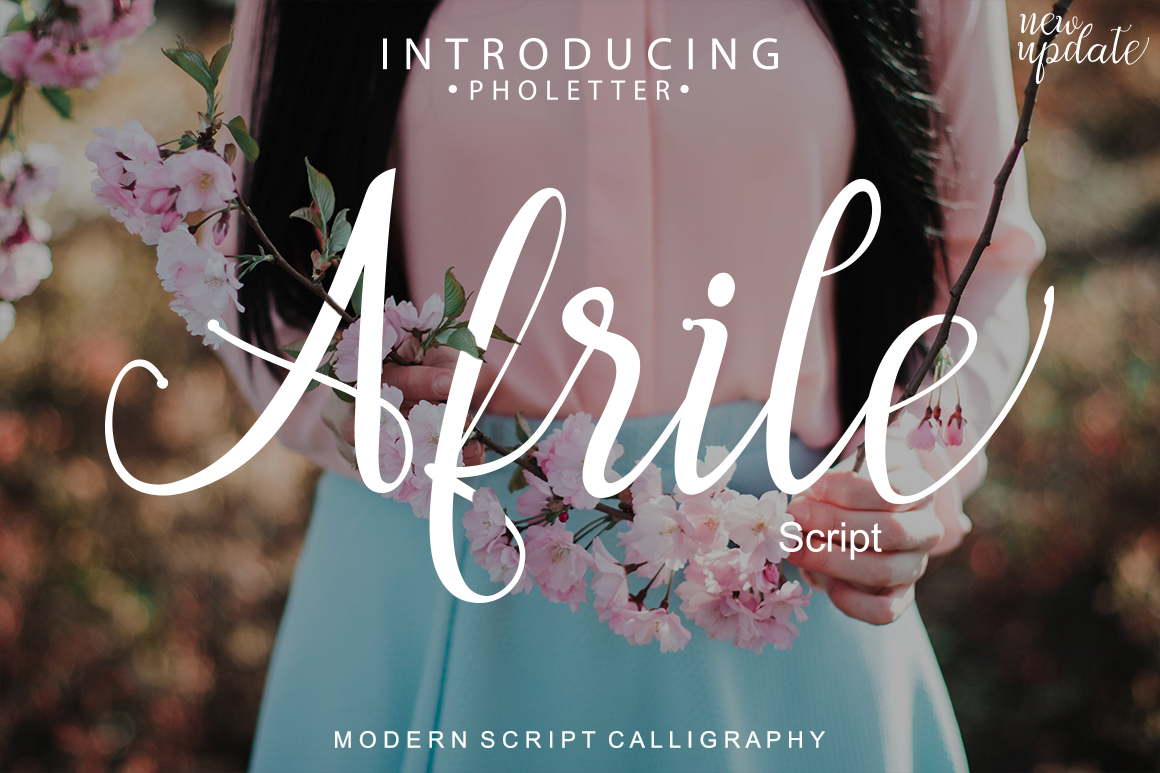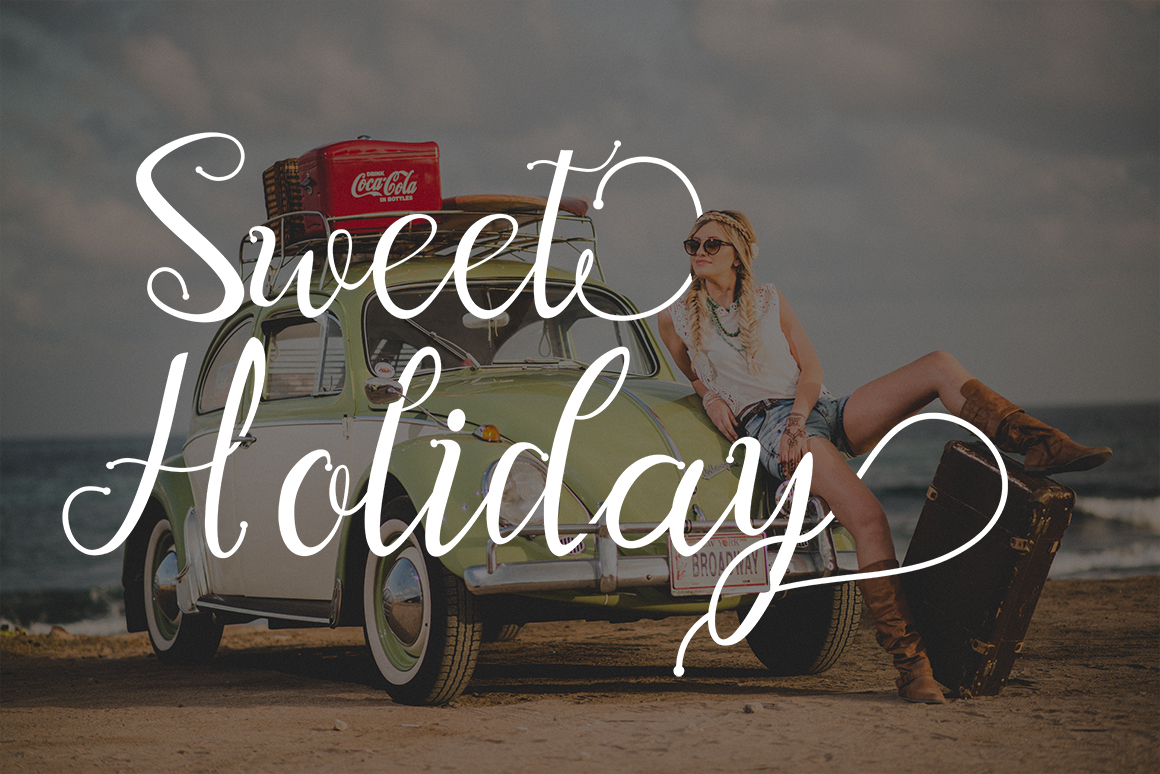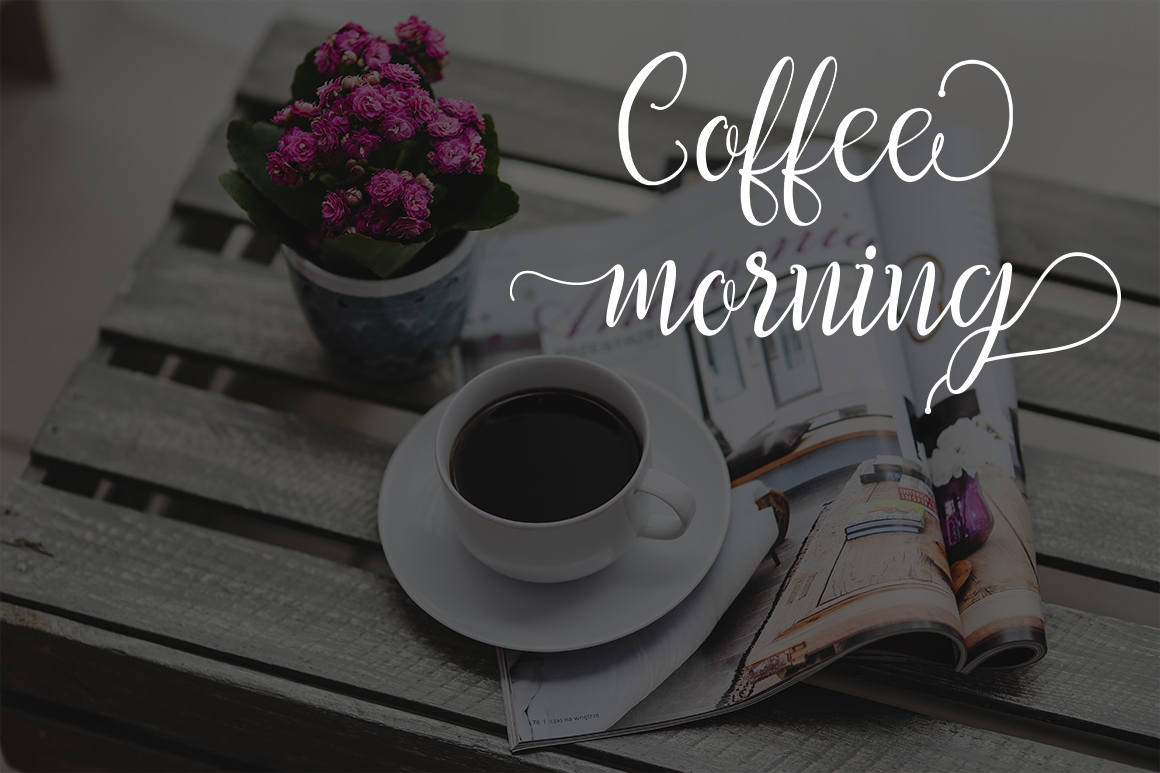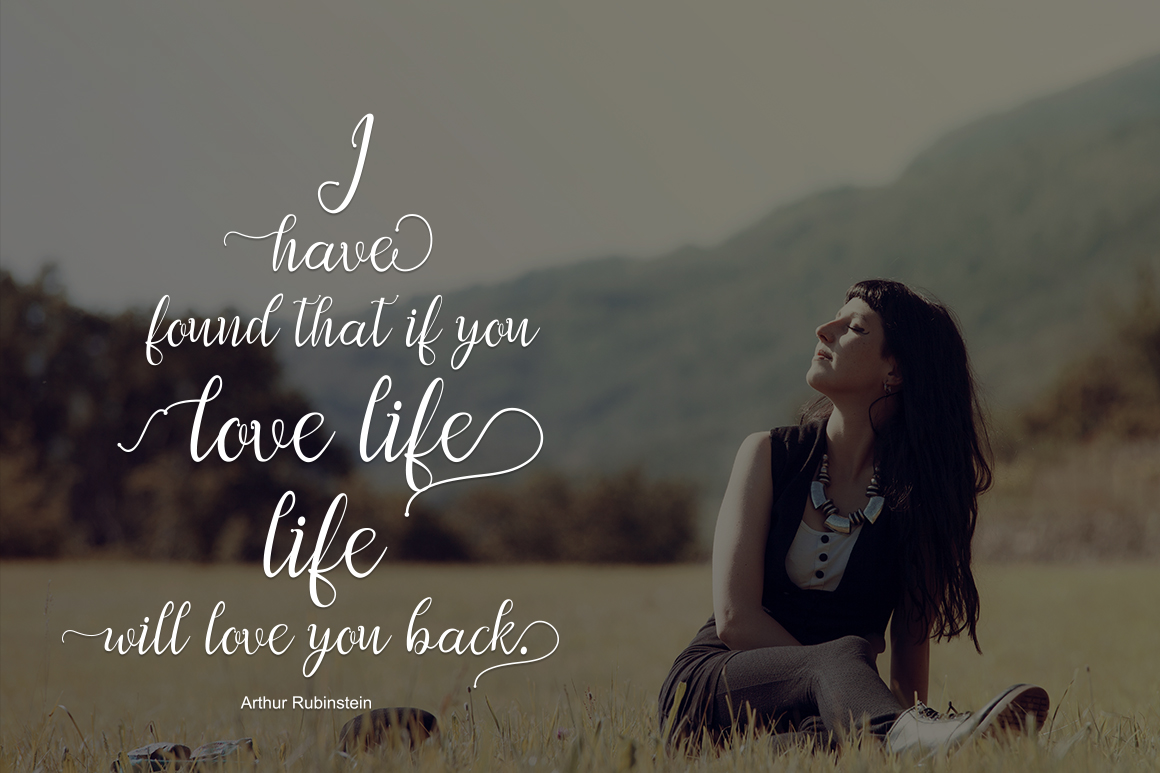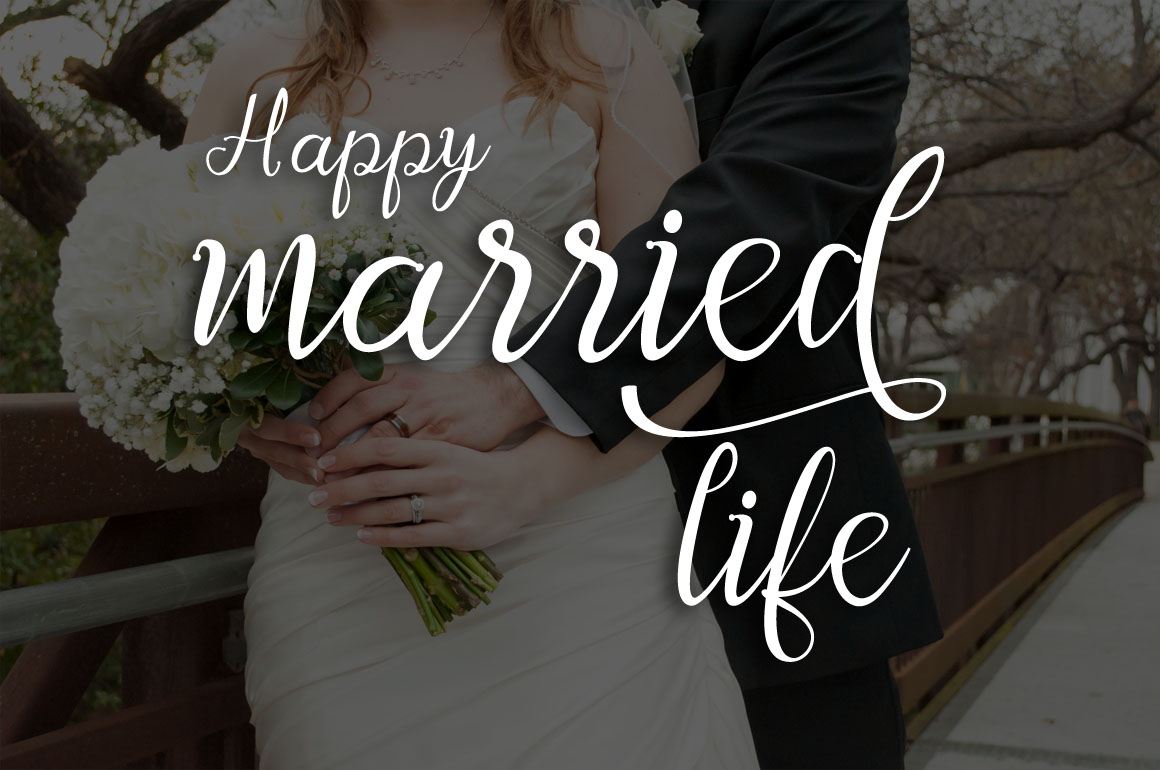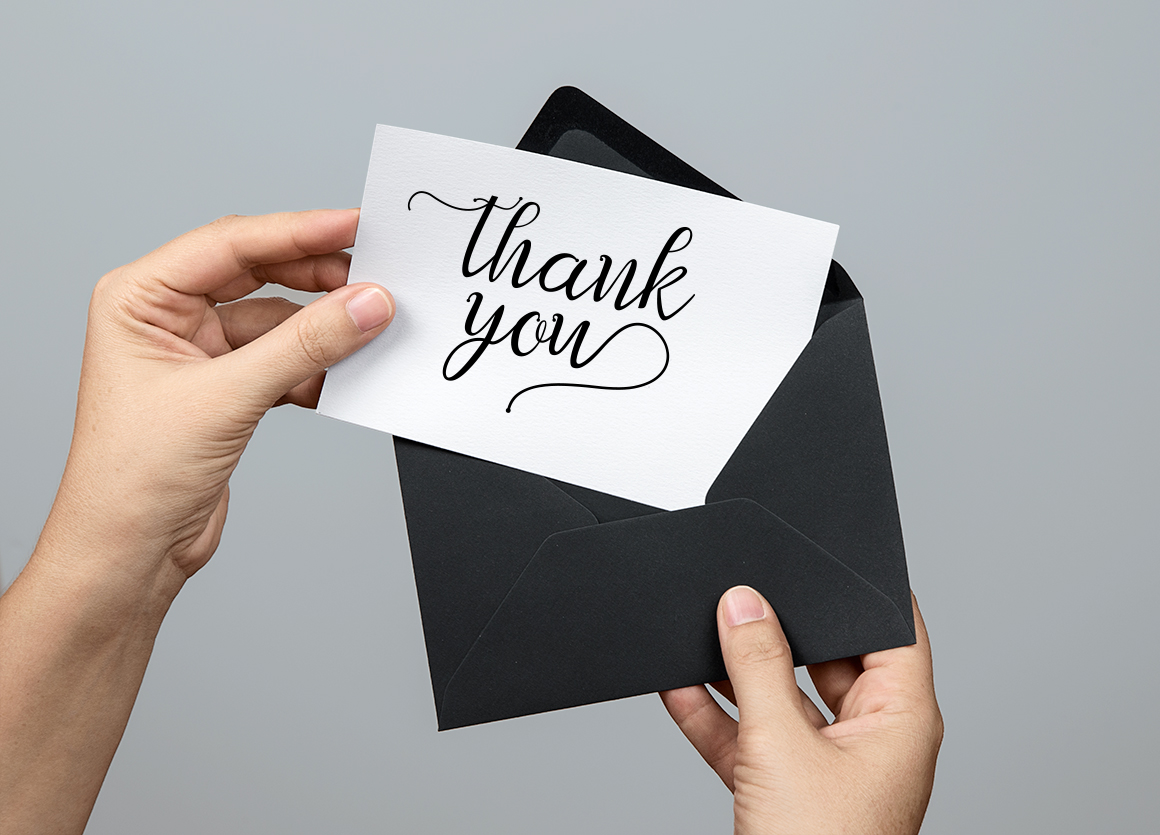
HomeScript FontsAfrile Font Script Fonts Afrile Font FacebookXPinterestWhatsApp Afrile Font Poster 2 Afrile Font Poster 3 Afrile Font Poster 4 Afrile Font Poster 5 Afrile Font Poster 6 About Afrile Font Afrile Script is a modern handwritten font featuring over 460 unique glyphs. DOWNLOAD NOW People also explored Garis Lurus Font Doverfield Font Run out of Font Soulmate Font Smoothing Font Moloko Font Lovely Natasya Font Arbiy Font Black Ocean Font 380 0 TagsAfrile Font Previous articleStylish FontNext articleEszty Font LEAVE A REPLY Cancel reply Comment: Please enter your comment! Name:* Please enter your name here Email:* You have entered an incorrect email address! Please enter your email address here Website: Save my name, email, and website in this browser for the next time I comment. Personal Use Free Boby Personal Use Free Read more about this font 1313 Mockingbird Lane Personal Use Free Read more about this font Stone Garden Personal Use Free Read more about this font Doriath Personal Use Free Read more about this font BLOG Modern Sans-Serif Fonts That Brands Love in 2025 In 2025, modern sans-serif fonts remain a top choice for brands looking to project clarity, professionalism, and... How to Install and Use Fonts on Windows, macOS, and Web Projects Free Fonts Risk: Why Free Fonts Can Be Dangerous for Designers Transform Your Website: Elevate Your Typography with 7 Best Web Font Generators